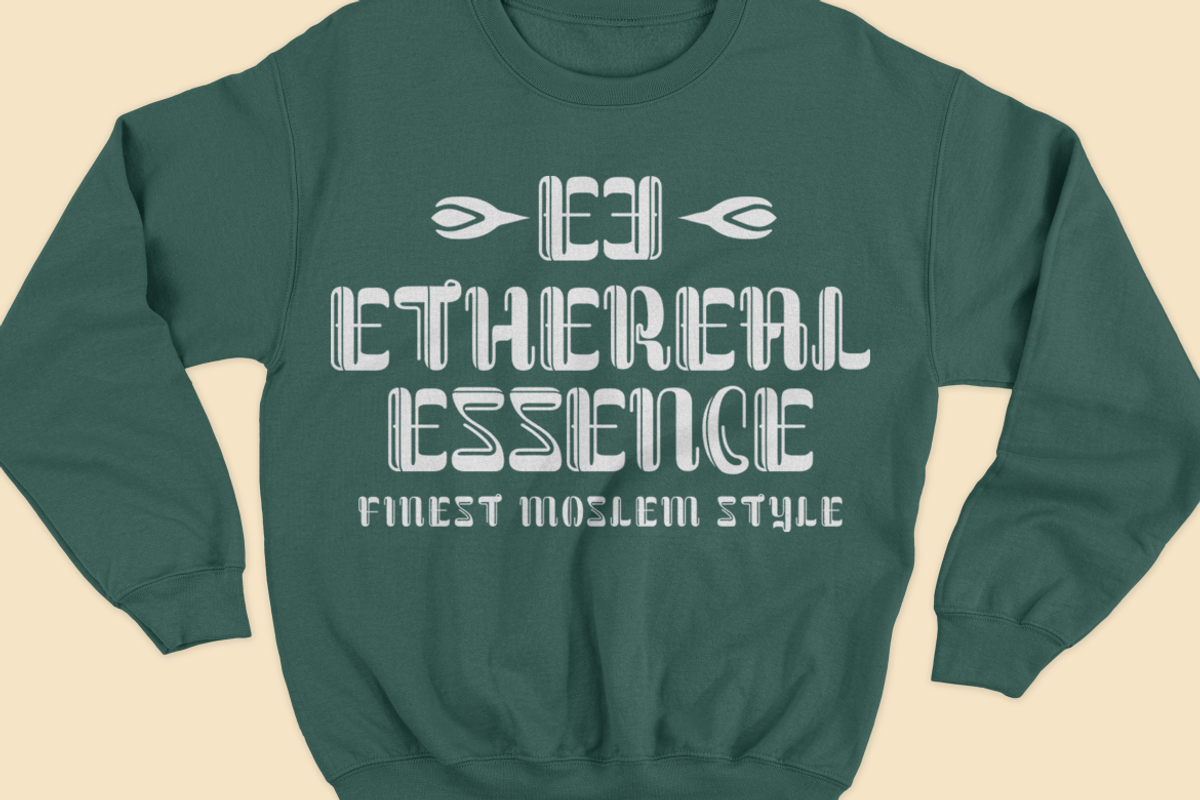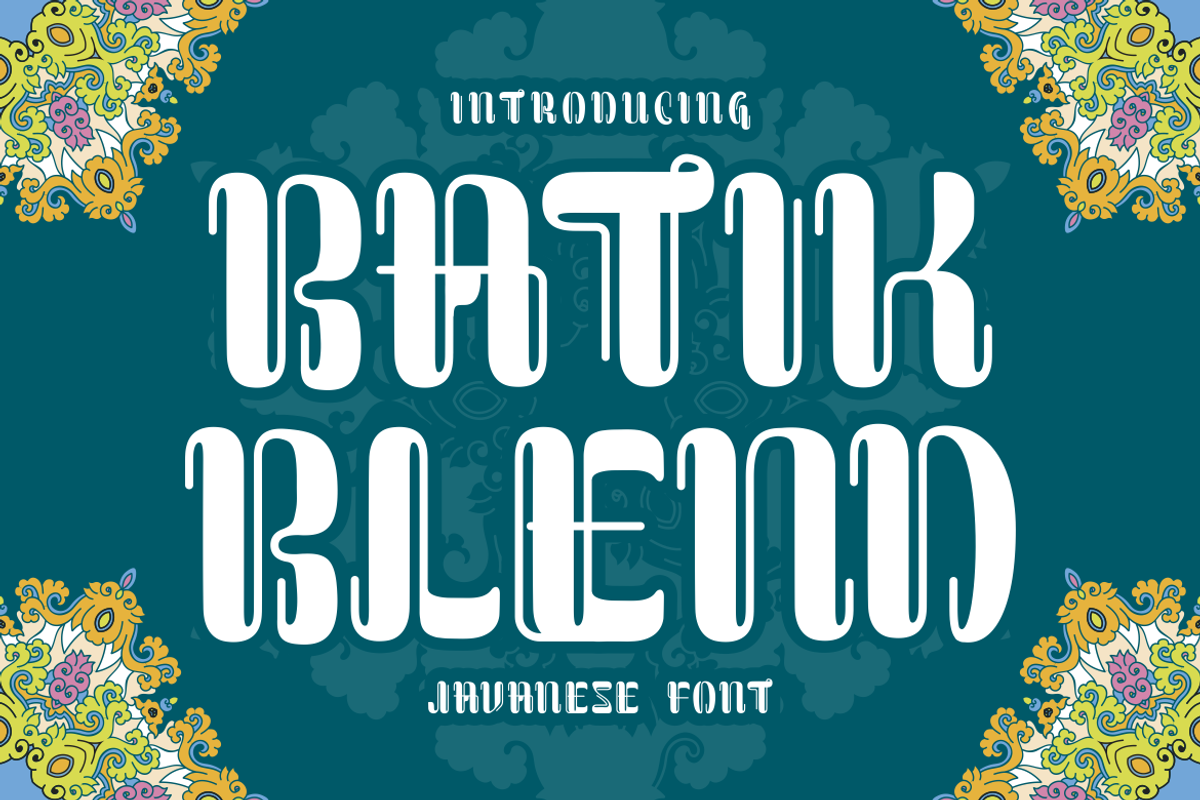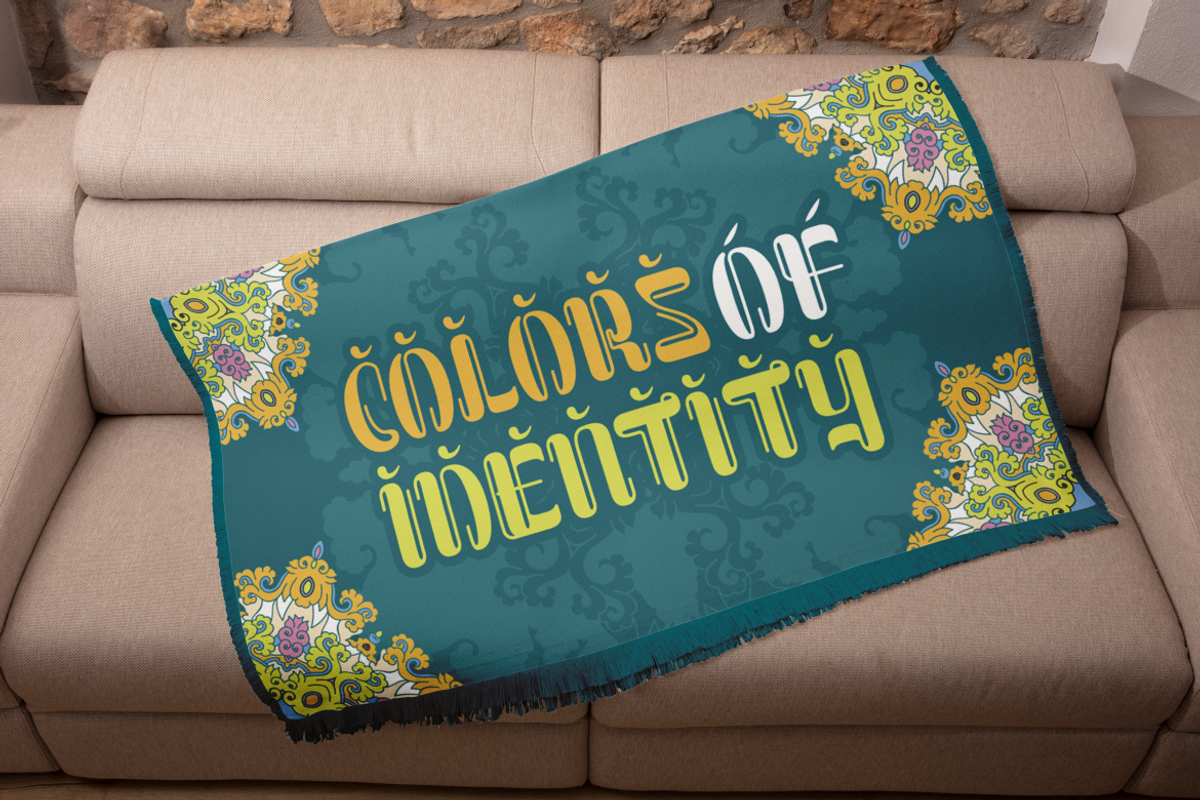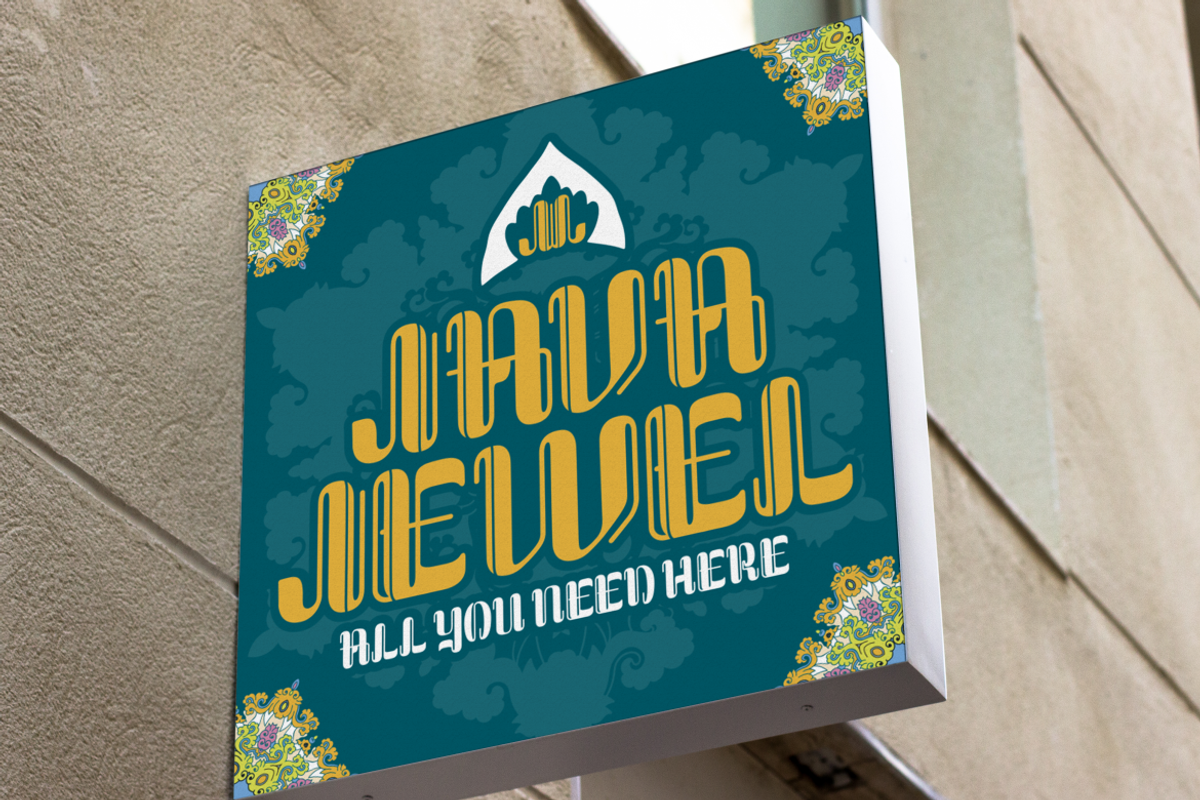
Batik Blend - Javanese Font
Introducing Batik Blend - Javanese Font, a captivating display typeface that beautifully merges the intricate art of Javanese batik with classic Sanskrit-inspired design. This font is a celebration of Java's rich cultural heritage, bringing the traditional aesthetic into the modern design landscape. Batik Blend’s unique character is evident in its detailed and artistic letterforms, making it an ideal choice for projects that require an ethnic and classic touch. Whether you're creating logos, branding materials, or crafting intricate invitations, this font provides a visually stunning solution that stands out.
Batik Blend is versatile and perfect for a wide range of applications, including packaging, posters, and business cards. Its detailed and ornamental style also makes it an excellent choice for greeting cards, stickers, children’s books, and magazines. The font’s ethnic and classic charm adds a touch of elegance and sophistication to any design project. With Batik Blend, you can effortlessly infuse your work with the beauty and tradition of Javanese culture, making your creations memorable and impactful. Embrace the artistic allure of Batik Blend and elevate your design projects to new heights.